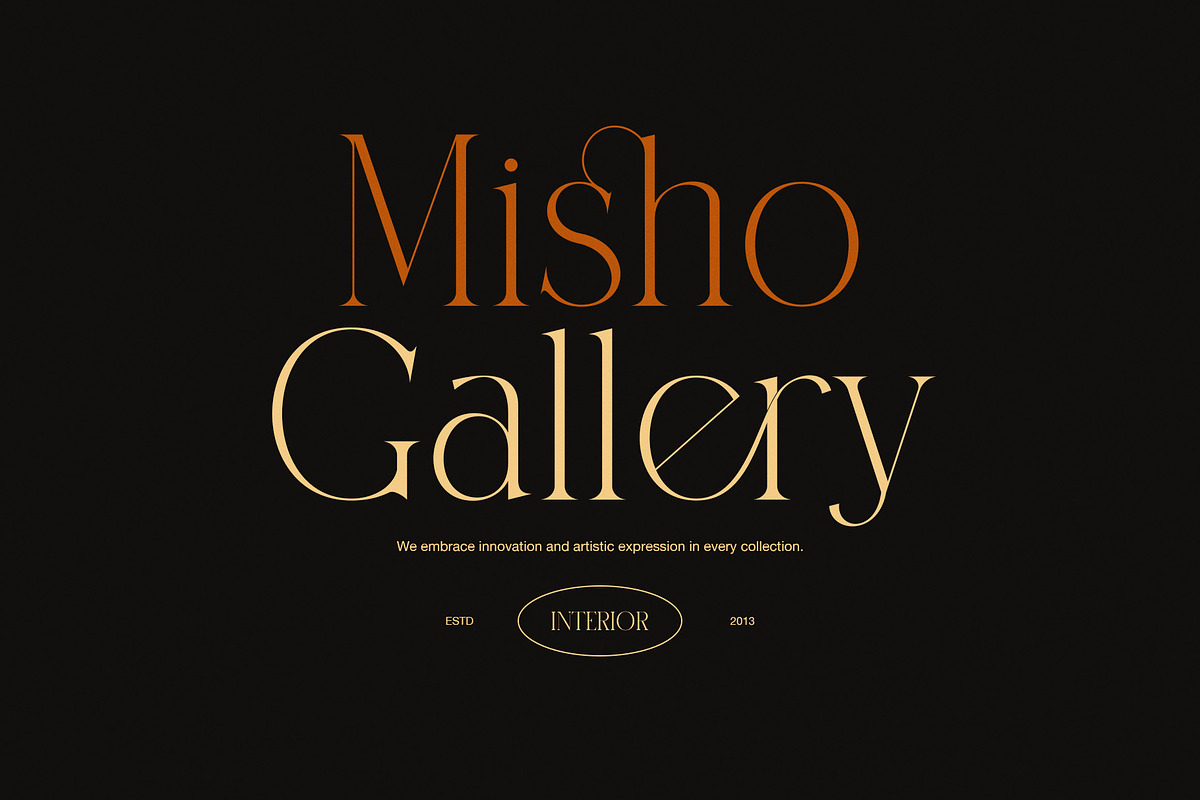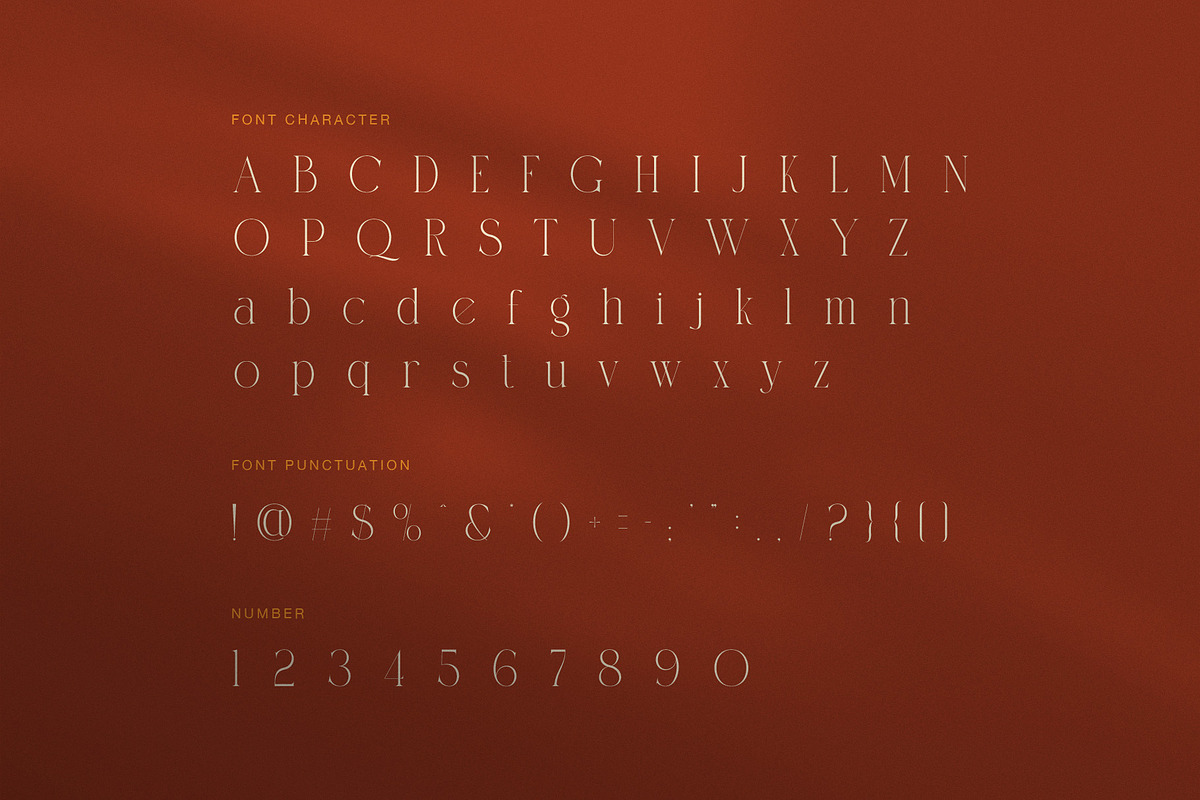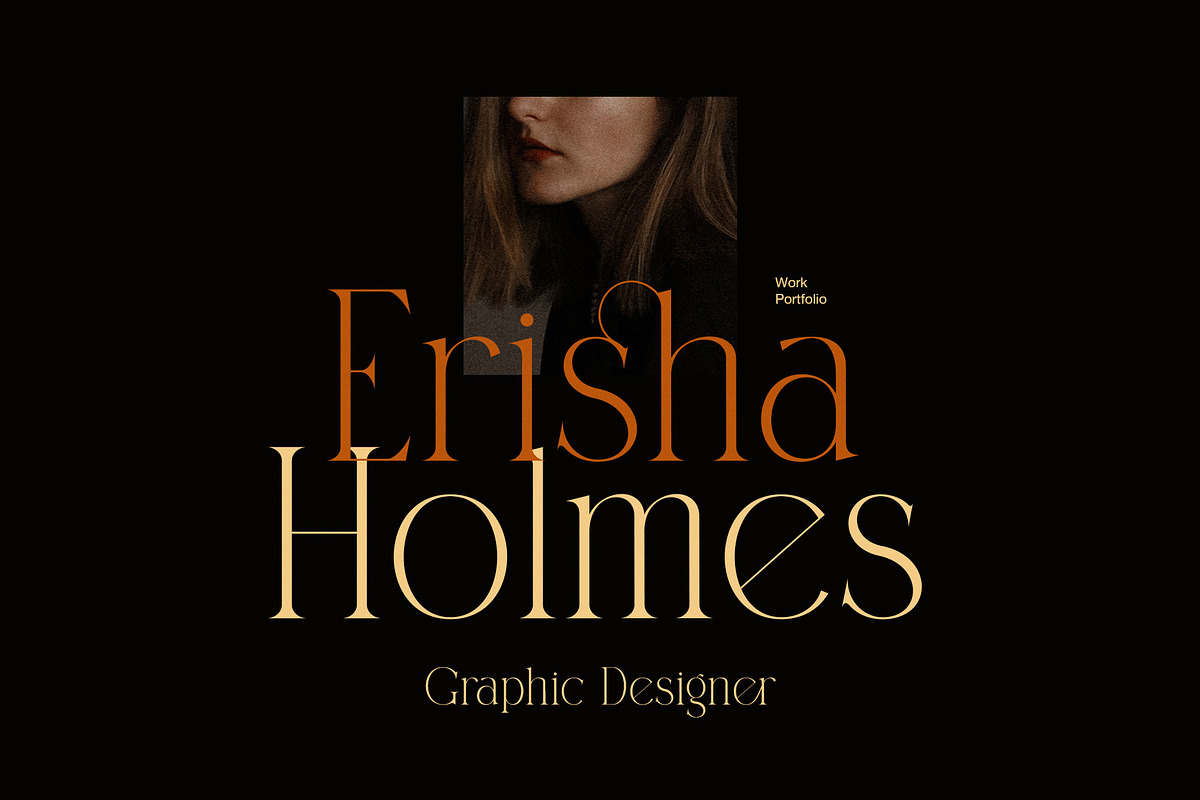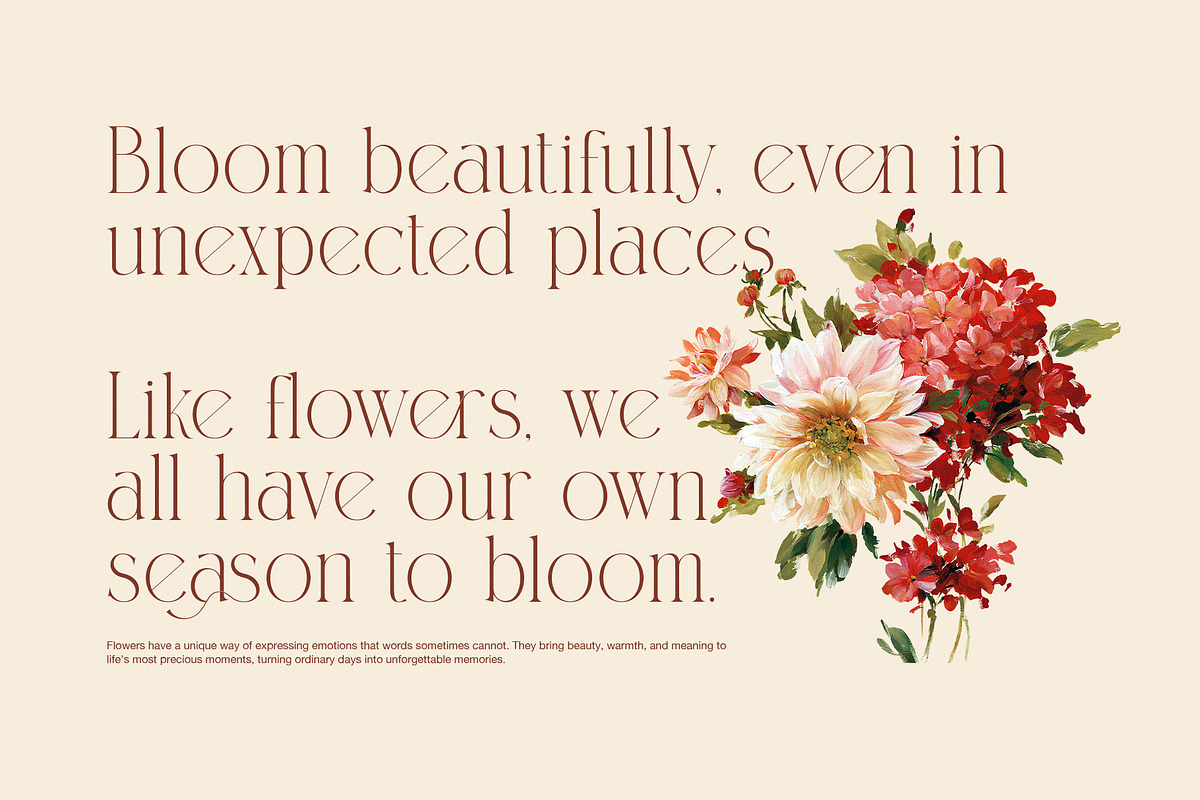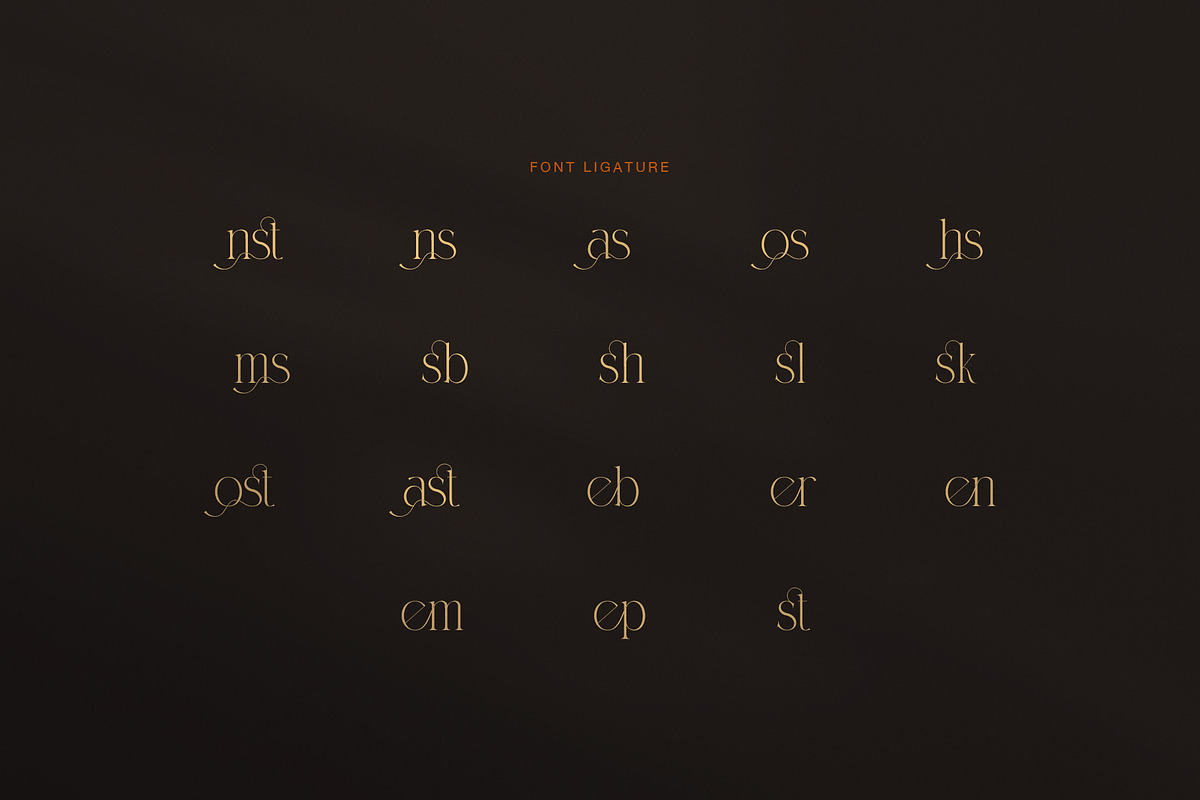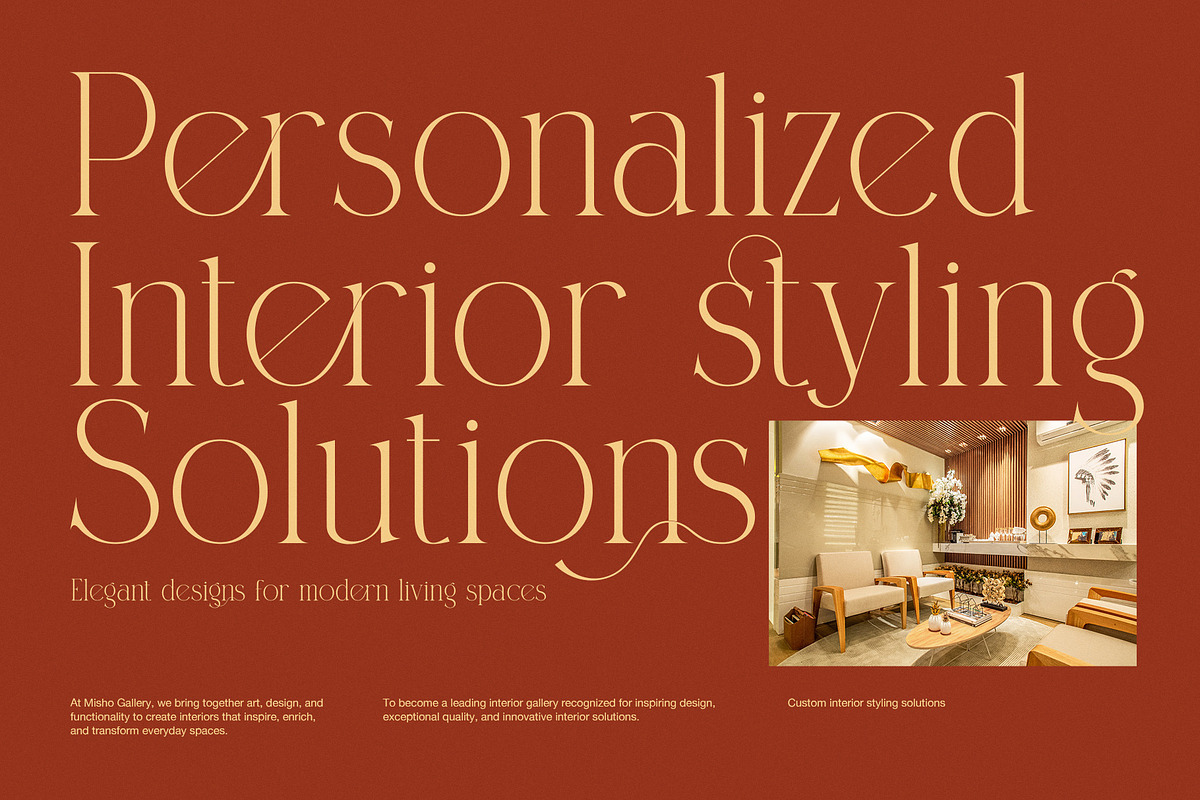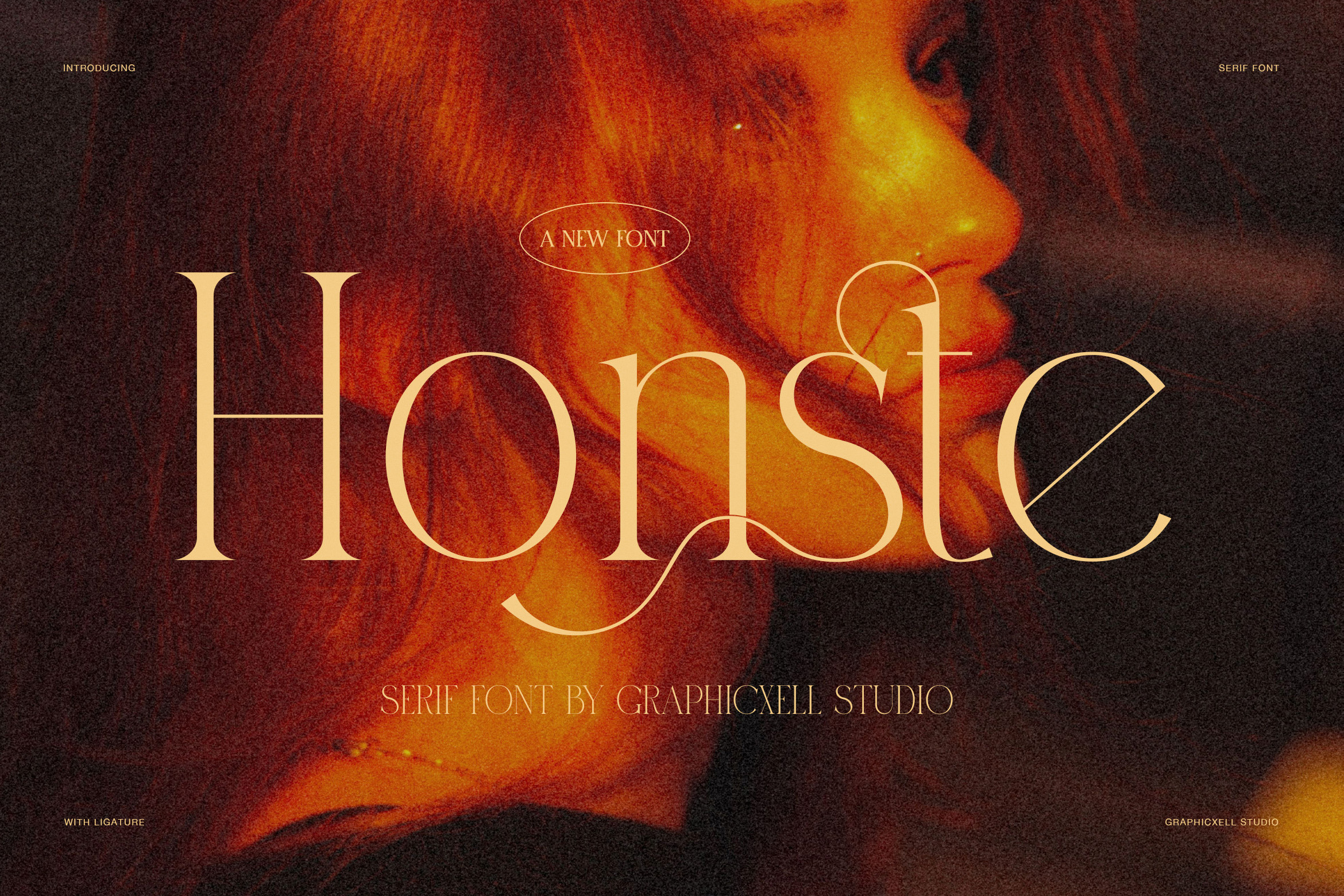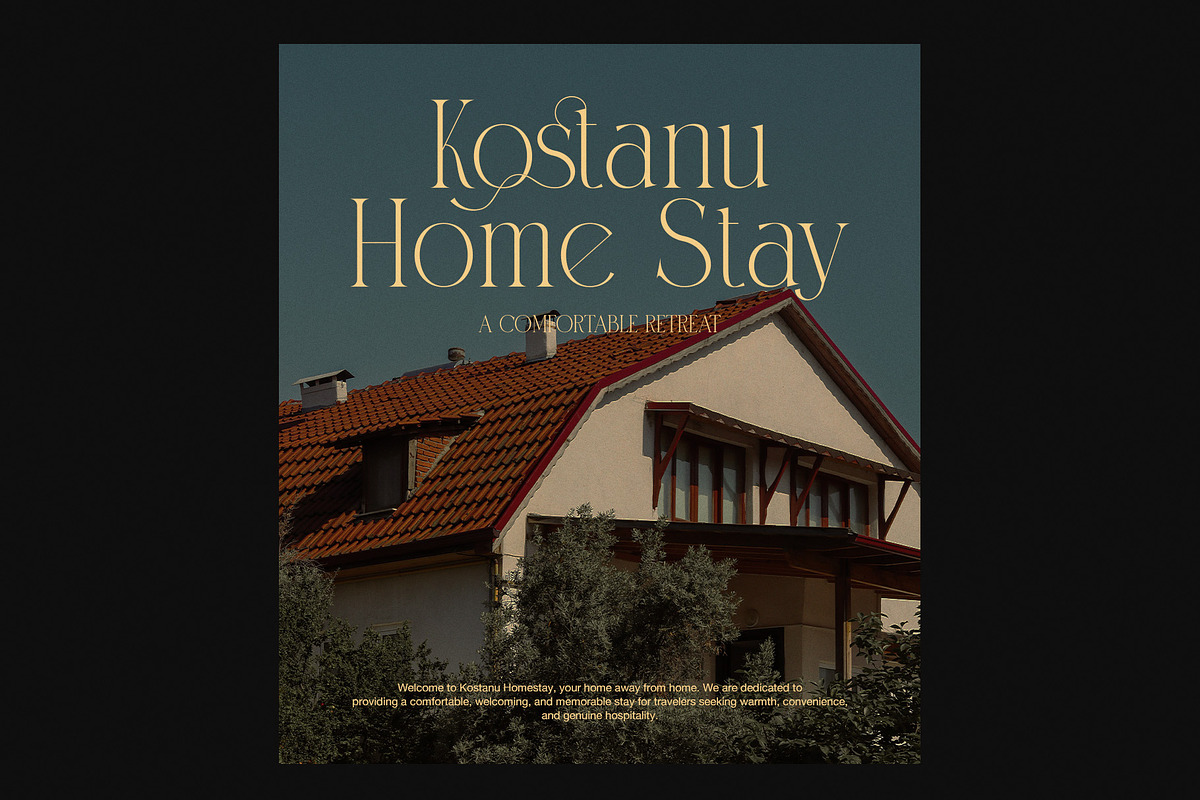
Honste Elegant Serif Display Font
Honste is an elegant serif display font designed for luxury branding, fashion visuals, and modern editorial design. Moreover, it combines high contrast strokes with soft curves to create a refined and emotional look. As a result, it stands out in both digital and print layouts.
Furthermore, Honste shows a strong cinematic mood inspired by warm tones, fashion portraits, and high-end magazine aesthetics. Meanwhile, its letterforms are carefully shaped to balance beauty and readability. In addition, the font includes stylish alternates and smooth ligatures that allow designers to build expressive and unique typography compositions.
Therefore, Honste works perfectly for logos, fashion branding, wedding invitations, beauty products, and creative portfolios. Also, it is highly suitable for social media branding and premium advertising layouts. However, it still keeps flexibility for minimalist and modern design systems.
Moreover, the font delivers a strong emotional tone through its elegant structure and soft contrast. As a result, it enhances any design with a sense of luxury and sophistication. Meanwhile, its clean spacing ensures clarity even at large display sizes.
Elegant high contrast serif design
Stylish alternates and ligatures
Fashion inspired typography style
Smooth curves and refined letterforms
Strong editorial and branding impact
In addition, Honste pairs beautifully with simple sans-serif fonts to create modern visual contrast. Therefore, designers can use it in bold headlines as well as soft storytelling layouts. Furthermore, it supports a timeless identity that works across digital platforms, print media, and branding systems.
Meanwhile, Honste is ideal for luxury fashion campaigns, beauty editorials, perfume branding, and modern art posters. Moreover, it brings a soft yet powerful voice to visual communication. As a result, designers can create strong impact without heavy decoration.
In addition, the font supports multiple creative directions. Therefore, it fits both minimal and expressive styles with ease. Furthermore, it helps brands maintain consistent identity across packaging, websites, and social media content. Meanwhile, its timeless design ensures long-term use without losing relevance.
Overall, Honste is more than just a serif font. It is a complete visual identity tool that brings elegance, emotion, and modern luxury into every design.